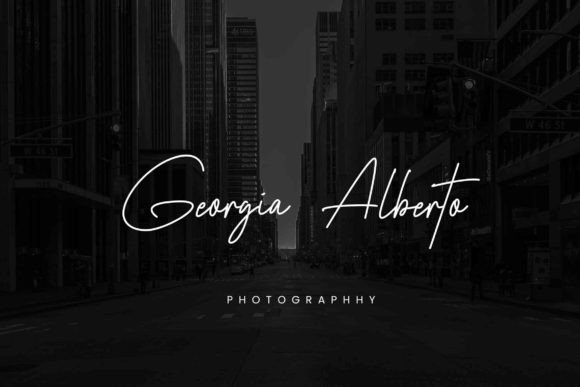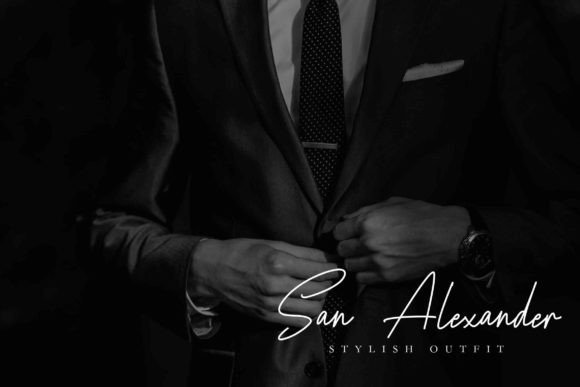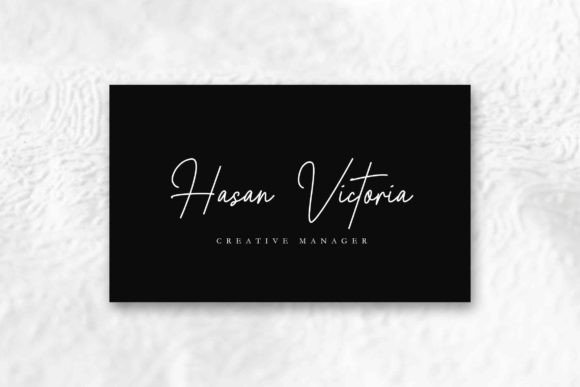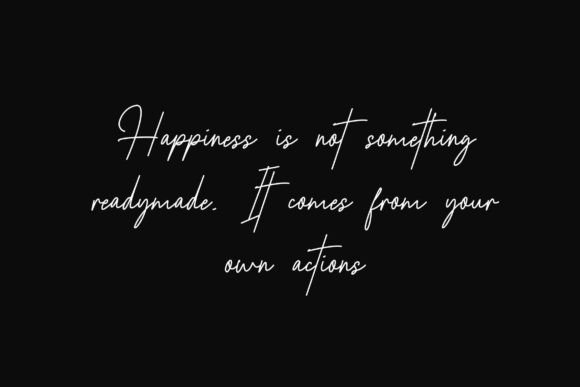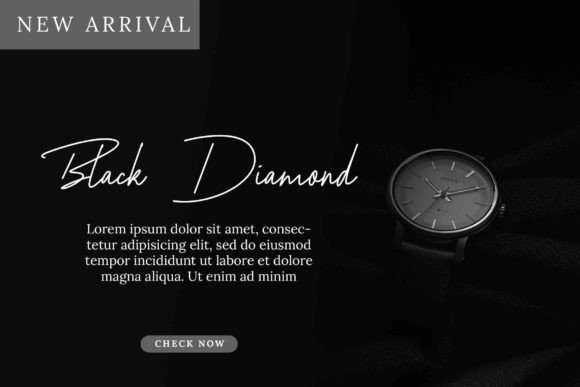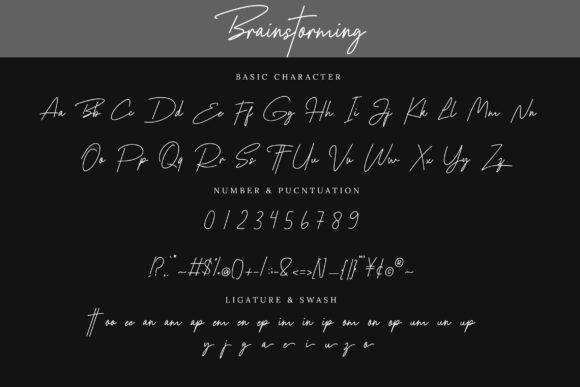
The Moment of Inspiration
There’s nothing quite like the rush of creativity that comes when a new project is born. You’re sitting at your desk, surrounded by scraps of paper, half-finished designs, and a cup of cold coffee. Your mind is racing with ideas, and you can’t wait to bring them to life. This is the moment when the perfect font can make all the difference.
For designers, the right font can be the key to unlocking a design’s full potential. And that’s exactly where the Brainstorming Font comes in – a stylish monoline signature font that’s perfect for creating business cards, social media posts, logos, watermarks, and more. With its swash and ligature features, this font is a valuable tool for anyone looking to add a touch of elegance to their designs.
Brainstorming Font Key Features
- Font Size: The font comes in a single size, with a scalable design that allows for easy resizing without compromising on quality.
- Resolution: Brainstorming Font is optimized for high-resolution displays, with a resolution of up to 300 DPI, making it perfect for print and digital use.
- Unique Characteristics: The font features a unique blend of modern and vintage elements, with a focus on creative and innovative letterforms that inspire brainstorming and idea generation.
- Character Set: Brainstorming Font includes a comprehensive character set, including uppercase and lowercase letters, numbers, punctuation marks, and special characters.
- Language Support: The font supports a wide range of languages, including Latin-based languages, making it a versatile choice for designers and writers.
Designer Review: Brainstorming Font
Overall, I have mixed feelings about the “Brainstorming Font”. It’s a decent addition to any font library, but it’s not without its quirks. ✨
- Unique Letterforms: The font’s letterforms are quite distinctive and can add a touch of creativity to any project.
- Easy to Read: Despite its unconventional design, the font is surprisingly easy to read, even at smaller sizes.
- Overuse of Flourishes: The font’s excessive use of flourishes can make it look cluttered and overwhelming.
- Limited Font Sizes: The font doesn’t perform well at very small sizes, which can make it difficult to read.
- Not Suitable for Body Text: Due to its unconventional design, the font isn’t ideal for large blocks of body text.
While “Brainstorming Font” has some redeeming qualities, its limitations hold it back from being a truly effective font. It’s best suited for short, attention-grabbing phrases or titles, rather than extensive body text.
Practical Application Guide for Brainstorming Font
Tips for Getting the Most Out of Brainstorming Font
1. Use it in combination with other creative tools, such as sticky notes or mind mapping software.
2. Experiment with different font sizes and colors to create visual interest.
3. Use the font to create a visual hierarchy of ideas.
1. Brainstorming sessions
2. Mind mapping and diagramming
3. Presentation and report creation
Calibri
Calibri is a clean and modern sans-serif font suitable for presentations and reports. It is easy to read and can help convey a professional image. Use Calibri when you need a straightforward and efficient font for your design.
Compared to Brainstorming Font, Calibri is more formal and less playful, making it better suited for professional settings. Brainstorming Font is more creative and energetic, while Calibri is more subdued and practical.
Helvetica
Herr von Mueller & Co designed Helvetica in 1957, a classic sans-serif font that is versatile and widely used. It is suitable for both digital and print media. Use Helvetica when you need a timeless and sophisticated font for your design.